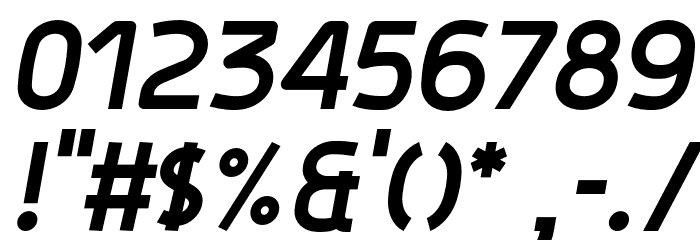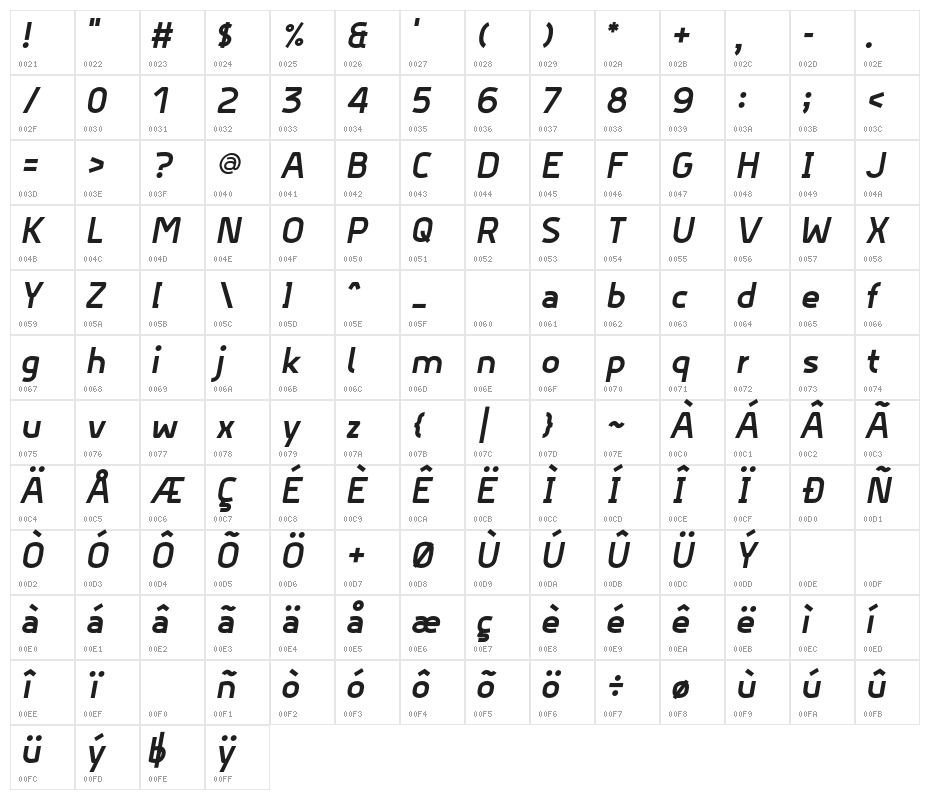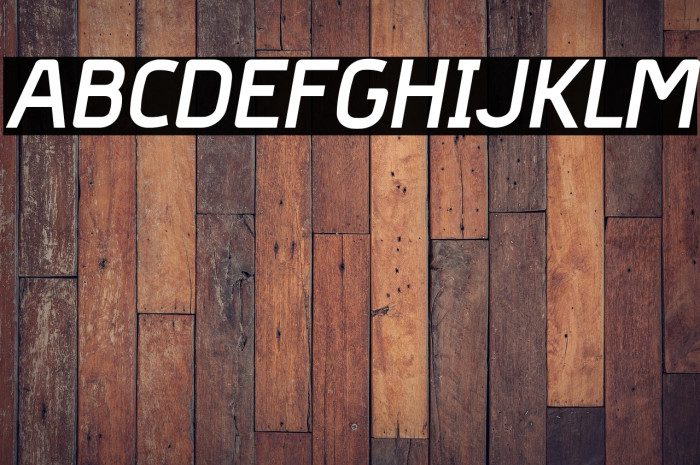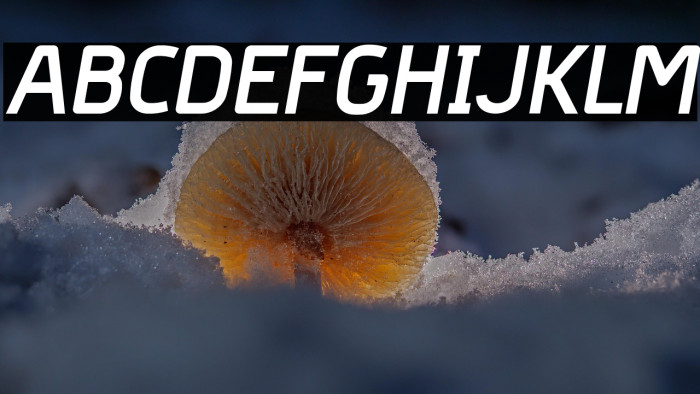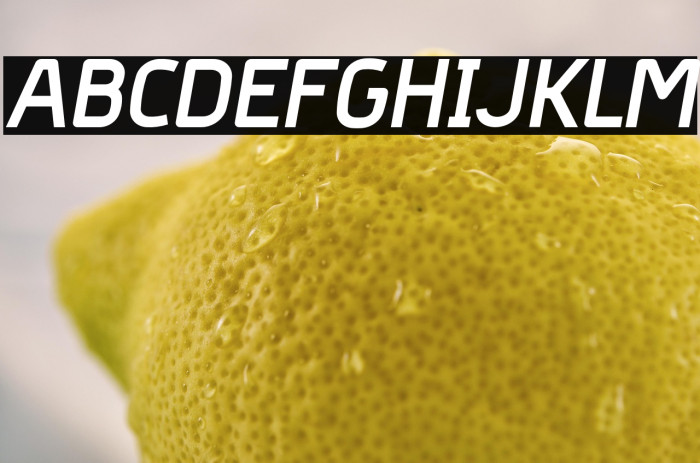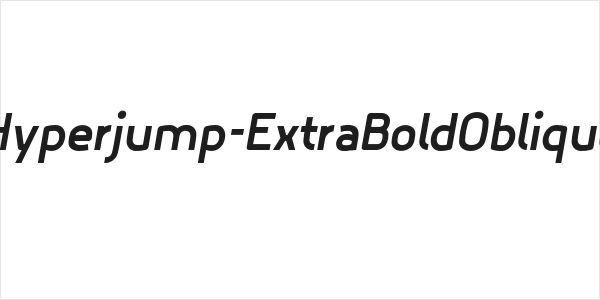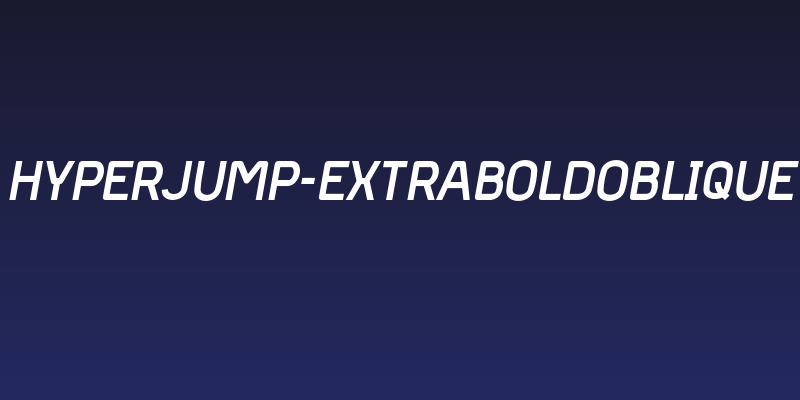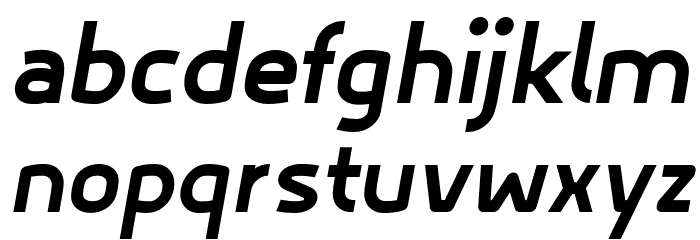
Hyperjump-ExtraBoldOblique Font
Hyperjump-ExtraBoldOblique Description
This font features a bold and dynamic style with a distinct oblique slant, giving it a sense of motion and energy. The characters are well-defined with a modern sans-serif design, making it suitable for contemporary applications. The bold weight ensures strong visibility, while the oblique angle adds a unique flair. The font maintains a consistent stroke width, contributing to its clean and professional appearance. It is versatile enough for both digital and print media, offering a sleek and polished look.
Use CaseHeadlines, Logos, Advertising
Proposed ProjectsIdeal for branding, advertising, headlines, and digital media where a strong, modern impression is needed.